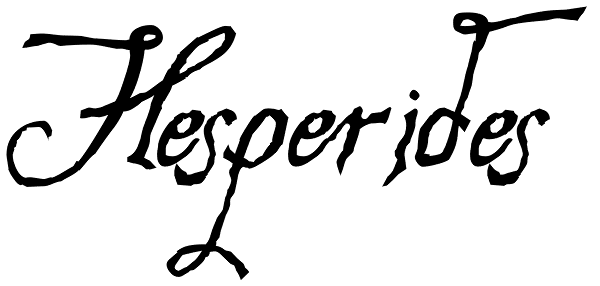
Hesperides
Hesperides is based on samples of Colonial period calligraphy. Rather than being directly derived from any one sample, some common characteristics have been emphasized to give it a more coherent and distinctive look, with the accentuated...